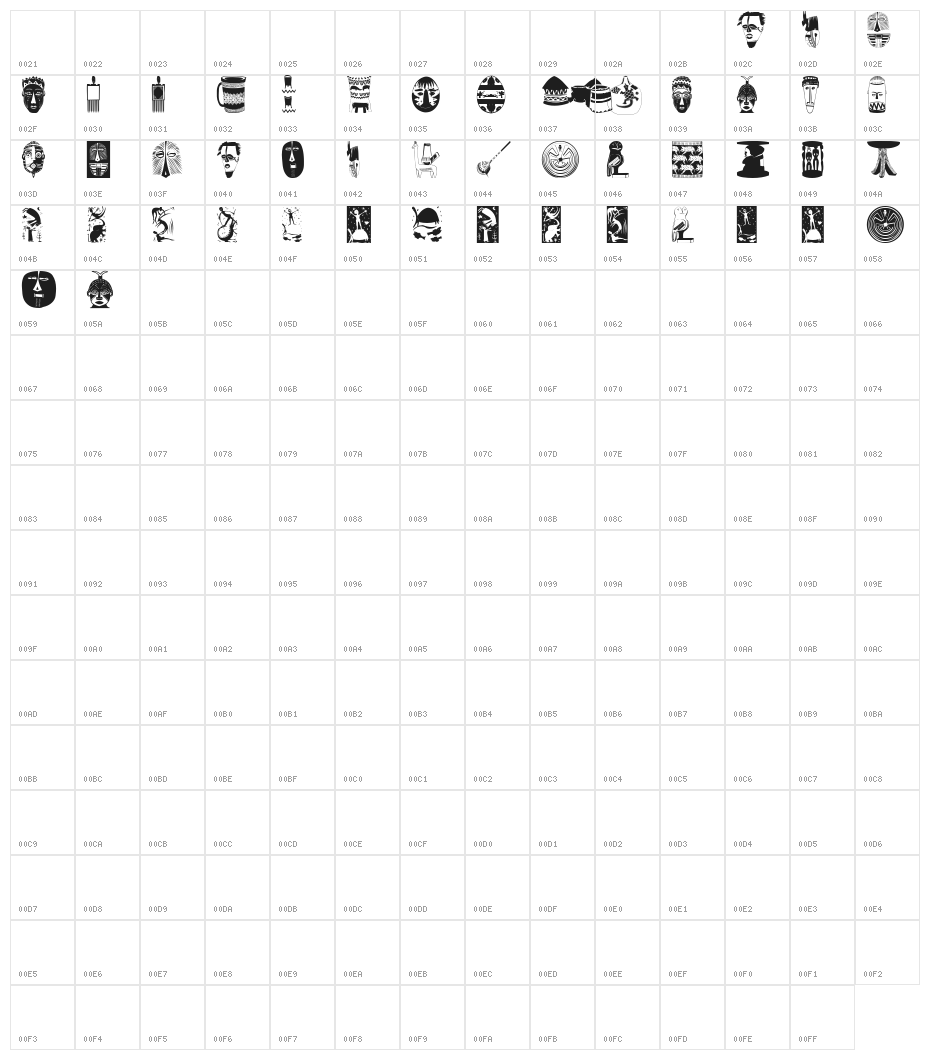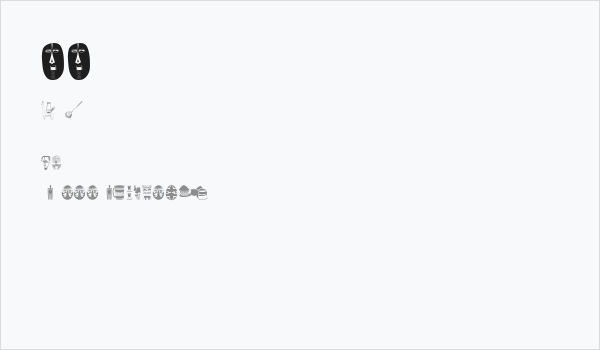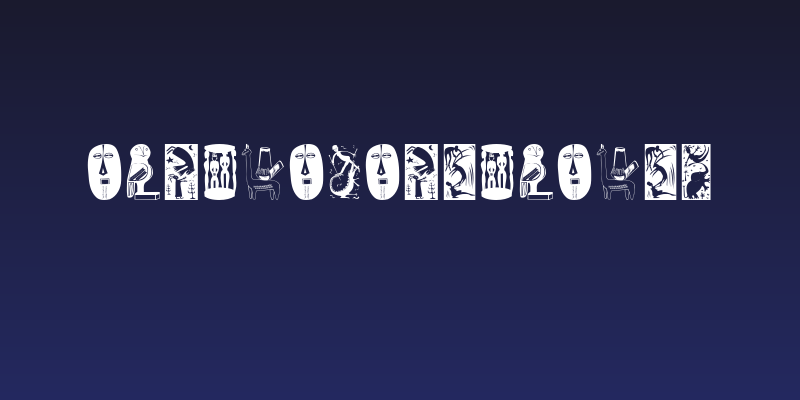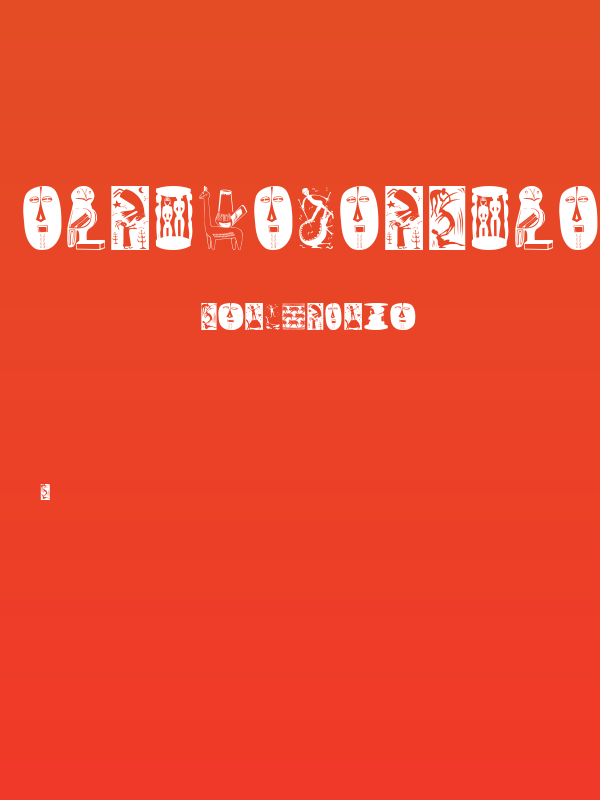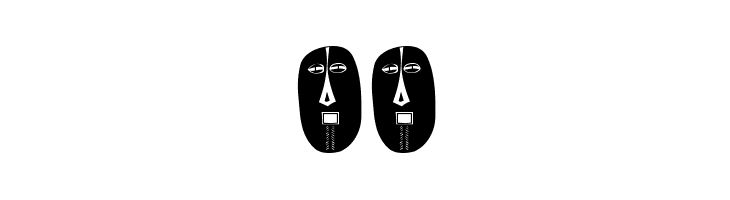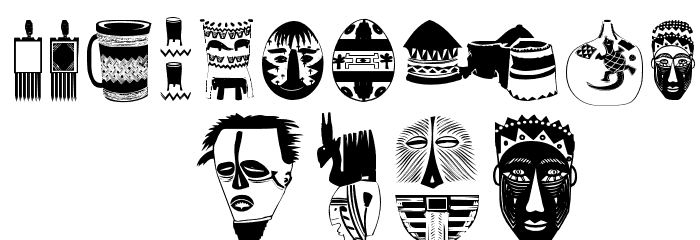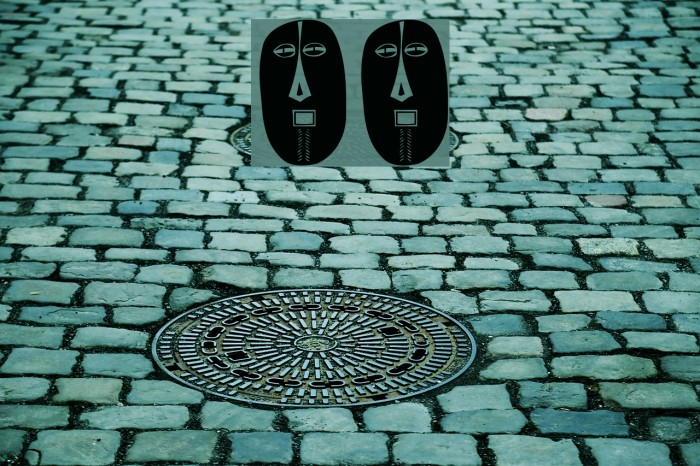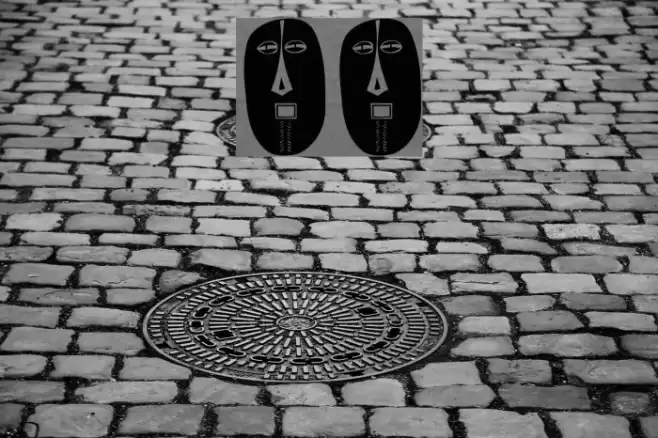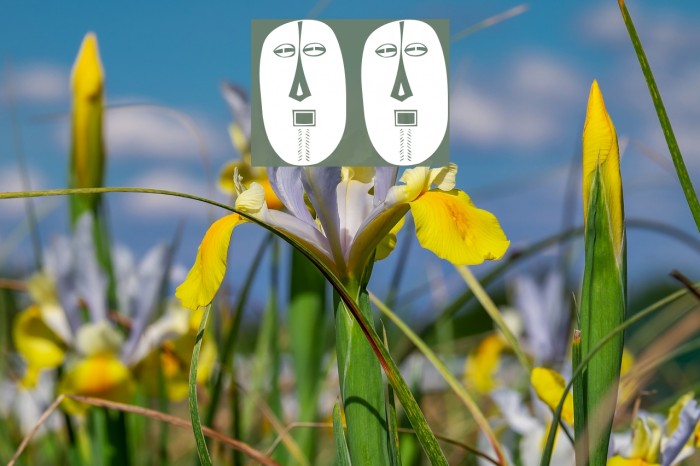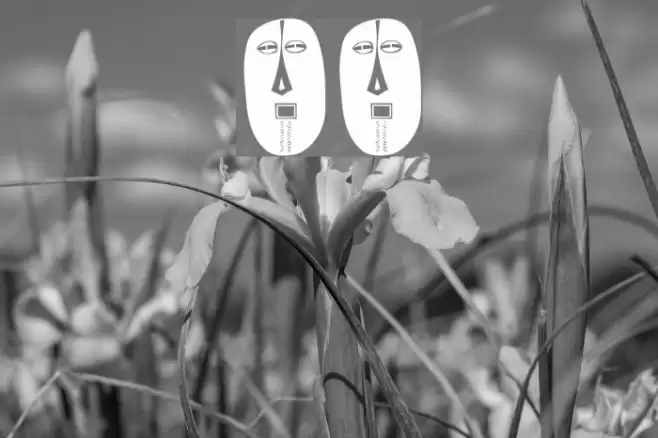
AfricanArtifacts Font
| Caz de utilizare | Artistic projects, cultural displays, educational materials. |
| Proiecte propuse | Ideal for cultural exhibitions, educational materials on African art, themed event decorations, or artistic projects that require a touch of traditional African aesthetics. |